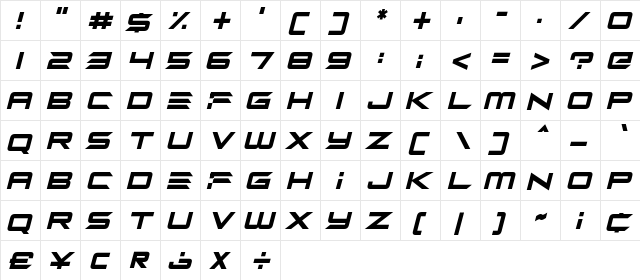
Alien Mine Italic
| Designer | Darrell Flood |
Design Context for Alien Mine Typeface
Alien Mine takes a measured approach to typography — its balanced proportions and neutral character make it a reliable workhorse for both digital and print work. Its italic angle brings a sense of urgency and motion to the letterforms.